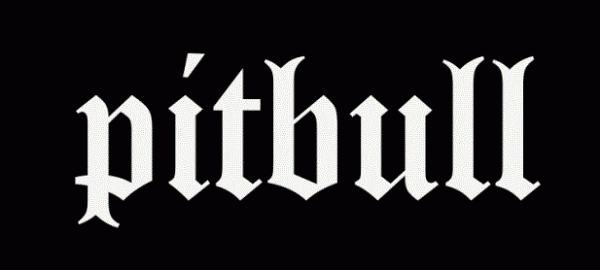
Pitbull Font
BandPitbull (Armando Christian Pérez, born January 15, 1981) is an American rapper, singer, songwriter, record producer, and Latin Grammy award-winning artist from Miami, Florida.
The first Pitbull logo features his name in blackletter lettering and the font used is Old English. This old English lettering logo appeared on the cover of his debut album M.I.A.M.I, and his second album El Mariel.
His third album, The Boatlift was released in 2007, and the record's cover featured this art deco-inspired logo. You can use the Akka font to reproduce the logo and download it for free in the Fonts Used Section.
Seen on Rebelution, the fourth studio album, this logo features a stenciled sans serif, probably designed based on Neue Helvetica Black Italic. In addition, two successive albums, namely, Planet Pit and Global Warming, also set the logo in Helvetica typeface, using Helvetica Black.